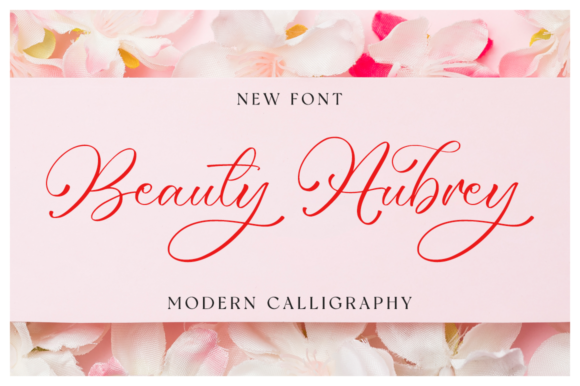
Adding a Touch of Elegance to Your Designs
Have you ever found yourself scrolling through a beautifully designed wedding invitation or greeting card, wondering what made it stand out from the rest? The answer often lies in the font used – a choice that can elevate a design from ordinary to extraordinary. As a designer, you know how a single font can make or break a project’s aesthetic. And that’s where the Beauty Aubrey Font comes in – a stunning, elegant handwritten font that’s sure to add a touch of sophistication to your designs.
This versatile font is perfect for a wide range of projects, from wedding invitations to business cards, and its PUA encoded feature makes it easy to access all the glyphs and swashes you need. Whether you’re a seasoned designer or just starting out, the Beauty Aubrey Font is an invaluable tool in your creative arsenal, allowing you to add a customized touch to any project.
Beauty Aubrey Font Key Features
- Font Family: Beauty Aubrey
- Unique Characteristics: A modern script font with elegant and sophisticated feel, suitable for invitations, wedding designs, and other creative projects.
- Font Style: Script, Casual
Beauty Aubrey Font Review
Overall, I think the Beauty Aubrey Font is a nice, elegant script font. Here are a few things that work well: ✨
- Soft, flowing lines that make it perfect for body text and titles
- Beautiful ligatures that enhance readability and visual appeal
- Good legibility, making it easy to read even at smaller font sizes
- The font may not be as bold or striking as some other script fonts
- It’s not particularly versatile and may not work well for more modern or edgy designs
- The font may not be as widely supported on older systems or browsers
Overall, I think the Beauty Aubrey Font is a solid choice for those looking for a classic, elegant script font. It’s perfect for weddings, invitations, and other formal events where you want to convey a sense of sophistication and refinement. However, it may not be the best choice for more modern or bold designs.
Use the Beauty Aubrey Font in conjunction with other decorative fonts to create a unique and eye-catching design. Experiment with different font sizes, colors, and styles to achieve the desired look. Use the font in headings and subheadings to create visual hierarchy in your design.
The Beauty Aubrey Font is perfect for creating feminine and elegant designs. Use it for wedding invitations, baby shower invitations, and other special occasion designs. You can also use it for fashion and beauty branding, such as makeup and skincare logos.
3 Creative Project Ideas Using Beauty Aubrey Font
Project 1: Elegant Invitation Card
The Beauty Aubrey Font is perfect for creating an elegant invitation card for a wedding or a special occasion. Its flowing curves and delicate lines evoke a sense of sophistication and romance.